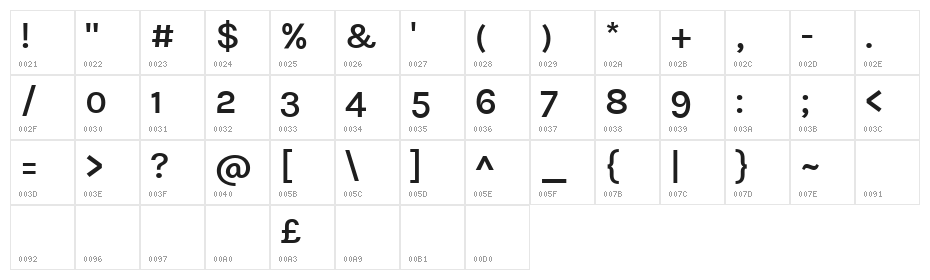
Karla Tamil Bold Font
Karla Tamil Bold Description
This font features a clean and modern sans-serif style with bold weight, offering excellent readability. The characters are well-proportioned with a consistent stroke width, providing a uniform appearance. The design is straightforward, with minimal decorative elements, making it versatile for various applications. The numerals and special characters maintain the same boldness, ensuring they stand out clearly. This font's simplicity and clarity make it suitable for both digital and print media.
| Use Case | Headlines, Logos, Digital interfaces |
| Proposed Projects | Ideal for use in headlines, branding, advertising, and digital interfaces due to its bold and clear style. |